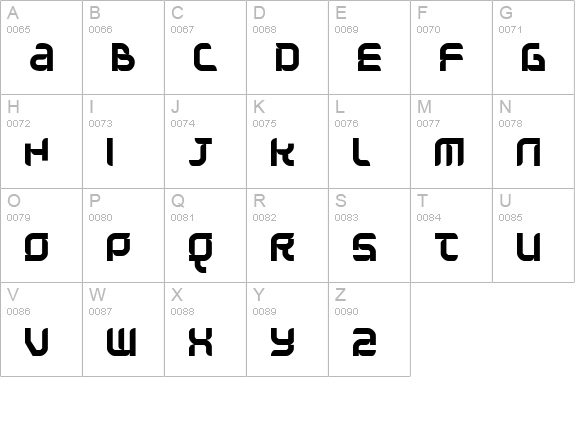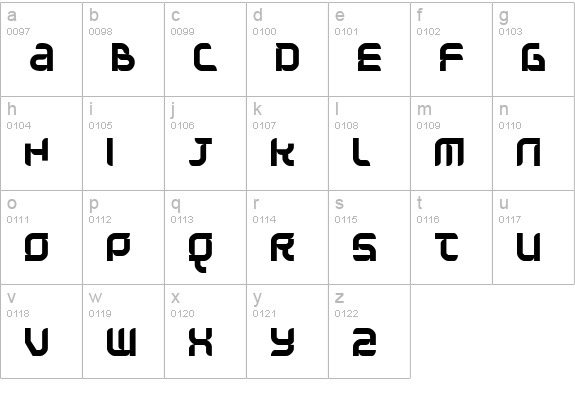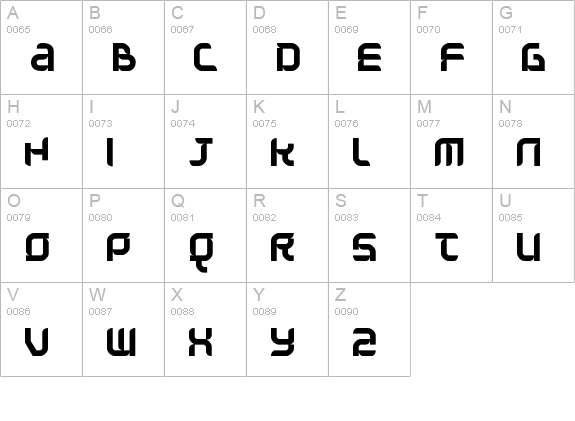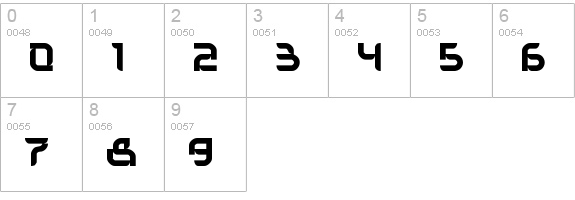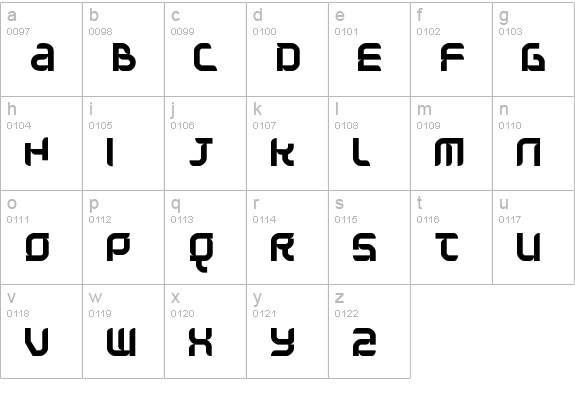
Question of time simple Font Details
Introducing the exquisite and elegant Question of Time font, a timeless creation that is sure to captivate and inspire. With its simple yet sophisticated design, this font effortlessly combines modern minimalism with a touch of classic charm. Question of Time is the perfect choice for any project that requires a clean and refined aesthetic. Whether it's designing logos, creating stunning invitations, or crafting beautiful typography for websites, this font will add a touch of elegance and professionalism to any design. But what truly sets Question of Time apart is its availability as a free download at FontsMarket.com. Yes, you read that right - this remarkable font can be yours, completely free of charge. FontsMarket.com is known for providing high-quality fonts, and Question of Time is no exception. It's a rare opportunity to enhance your creative endeavors without breaking the bank. Designed with precision and attention to detail, Question of Time boasts flawless lines and well-balanced letterforms. Each character is carefully crafted to ensure legibility and readability, making it a versatile choice for both print and digital media. Whether you're a seasoned designer or just starting out, Question of Time is an essential addition to your font collection. Its timeless appeal and effortlessly chic style will elevate your designs to new heights. So don't miss out on this incredible opportunity - head over to FontsMarket.com now and download Question of Time for free.